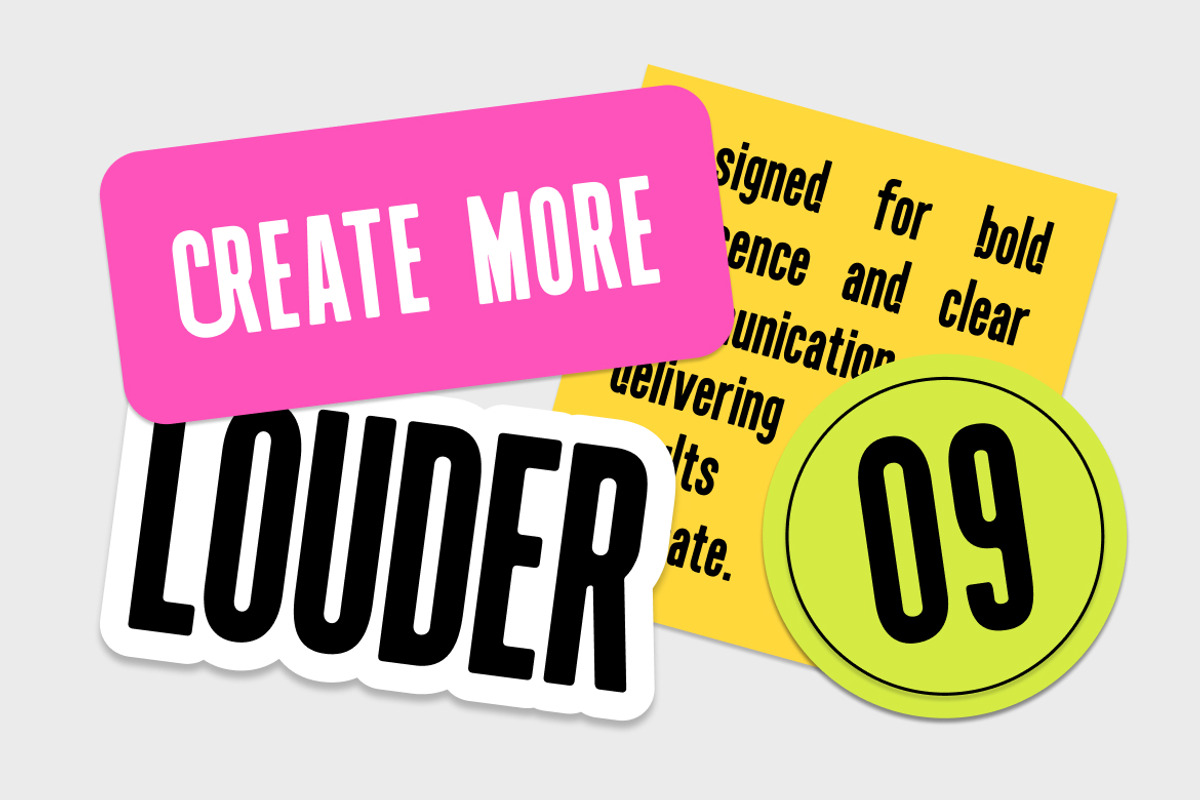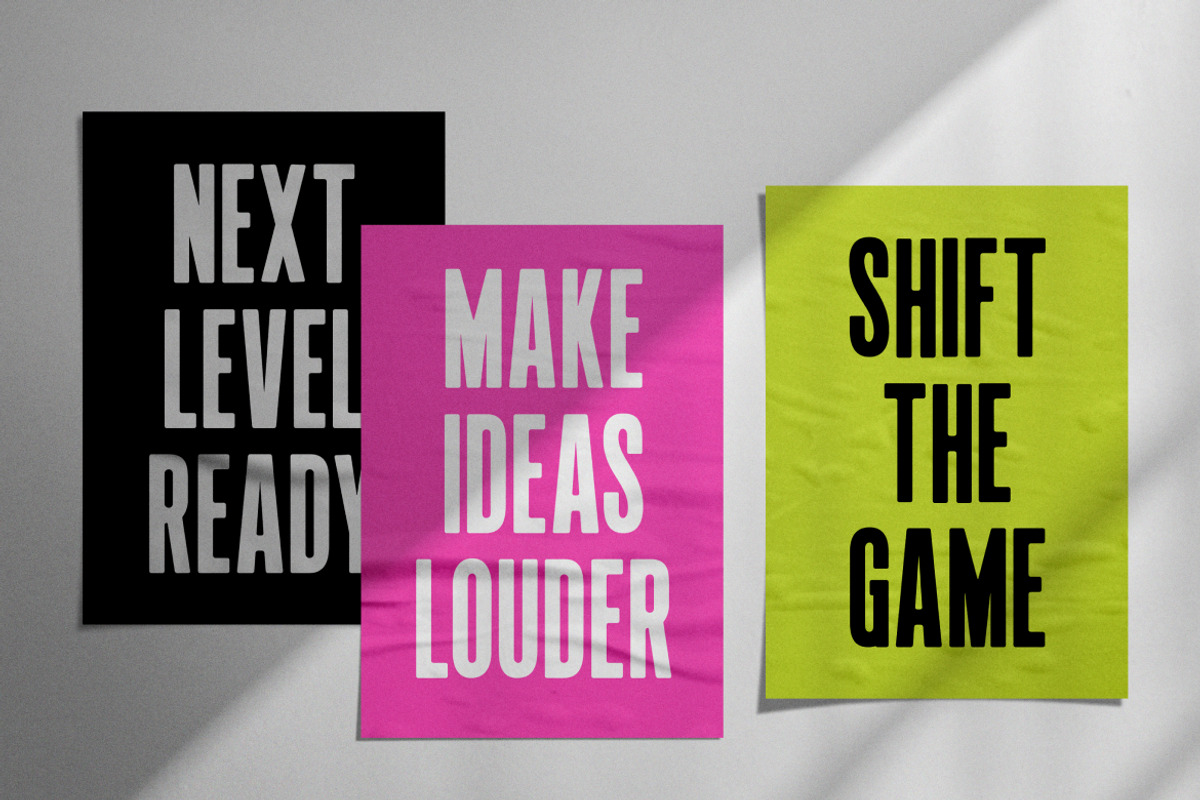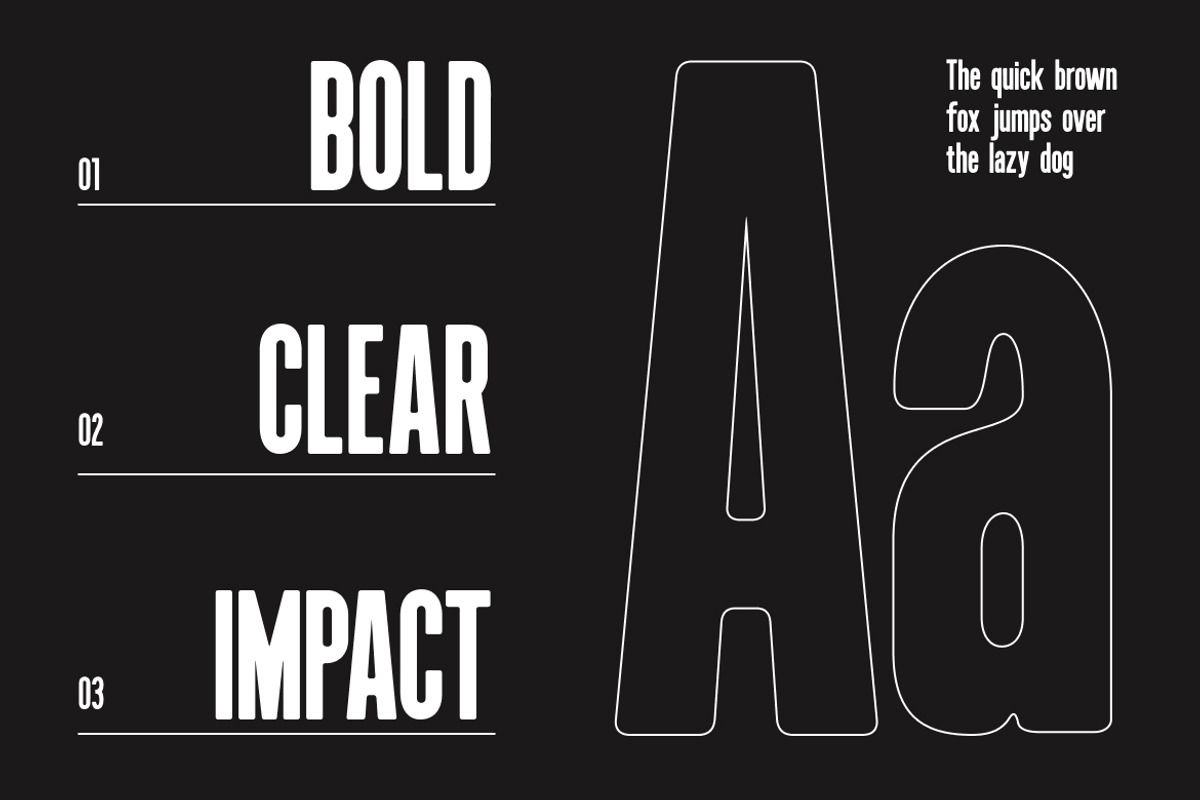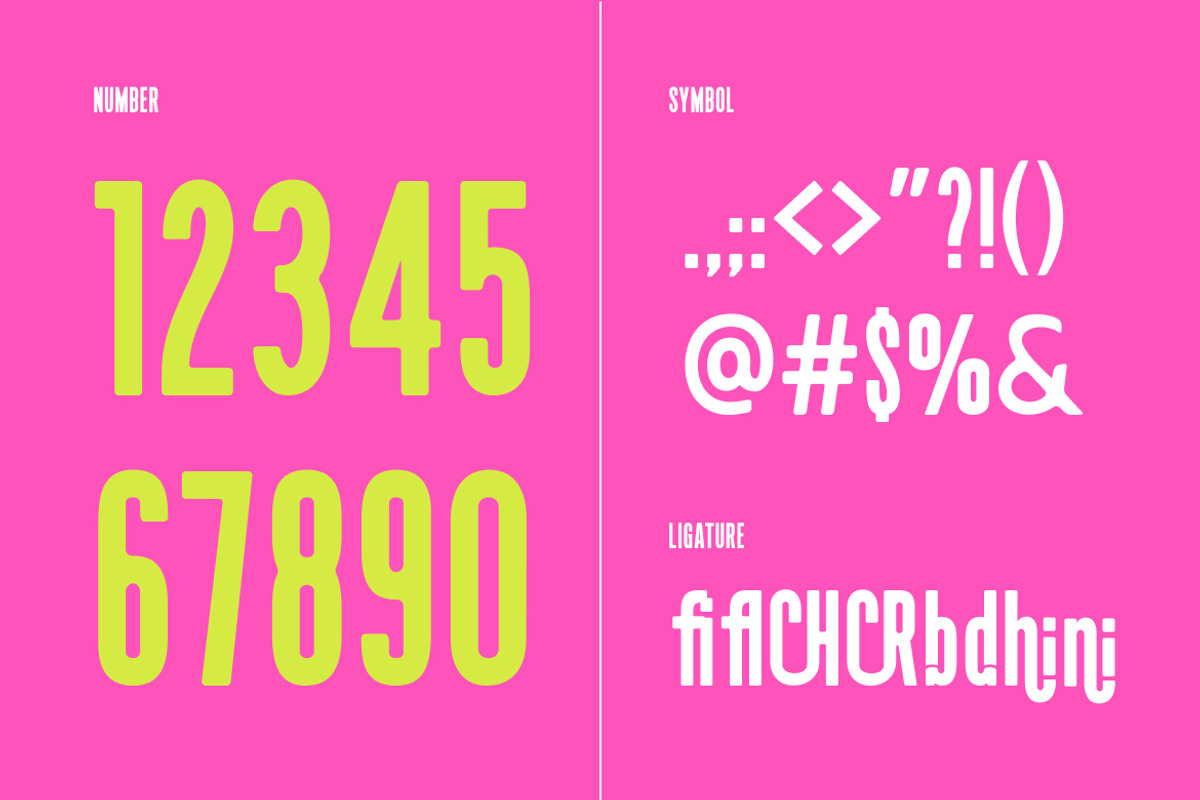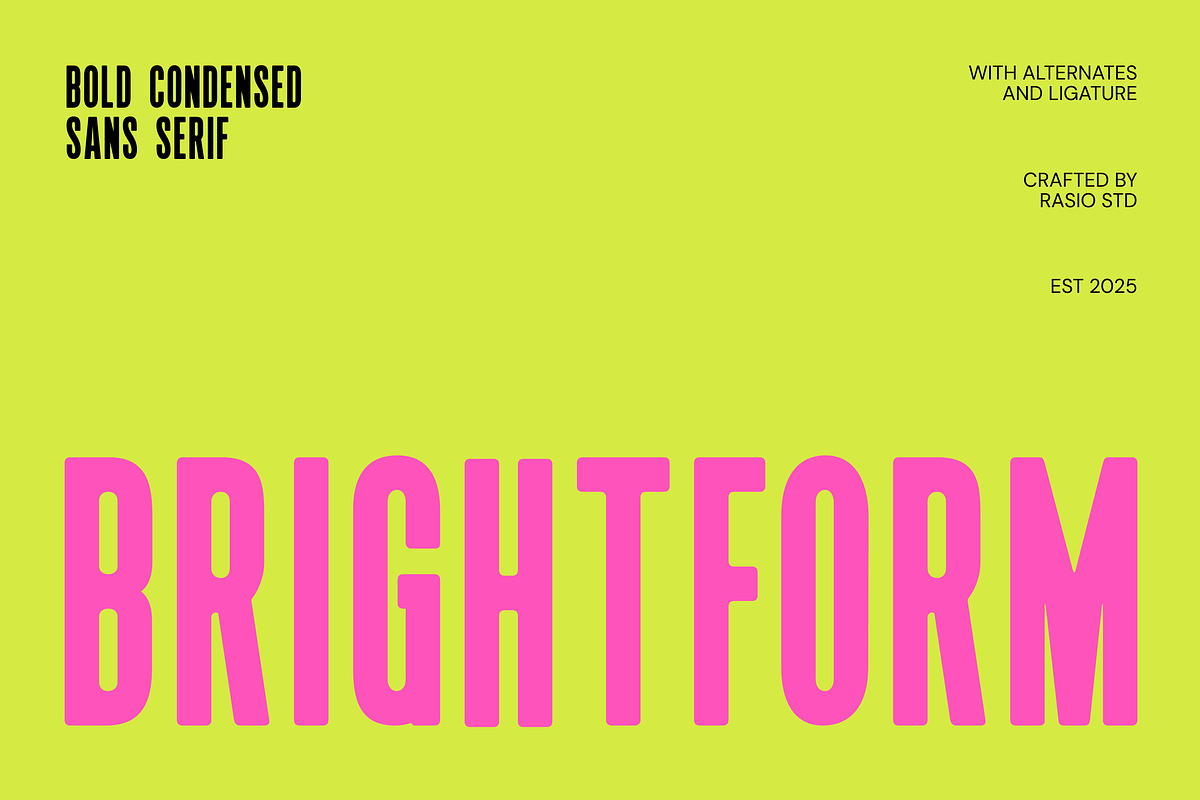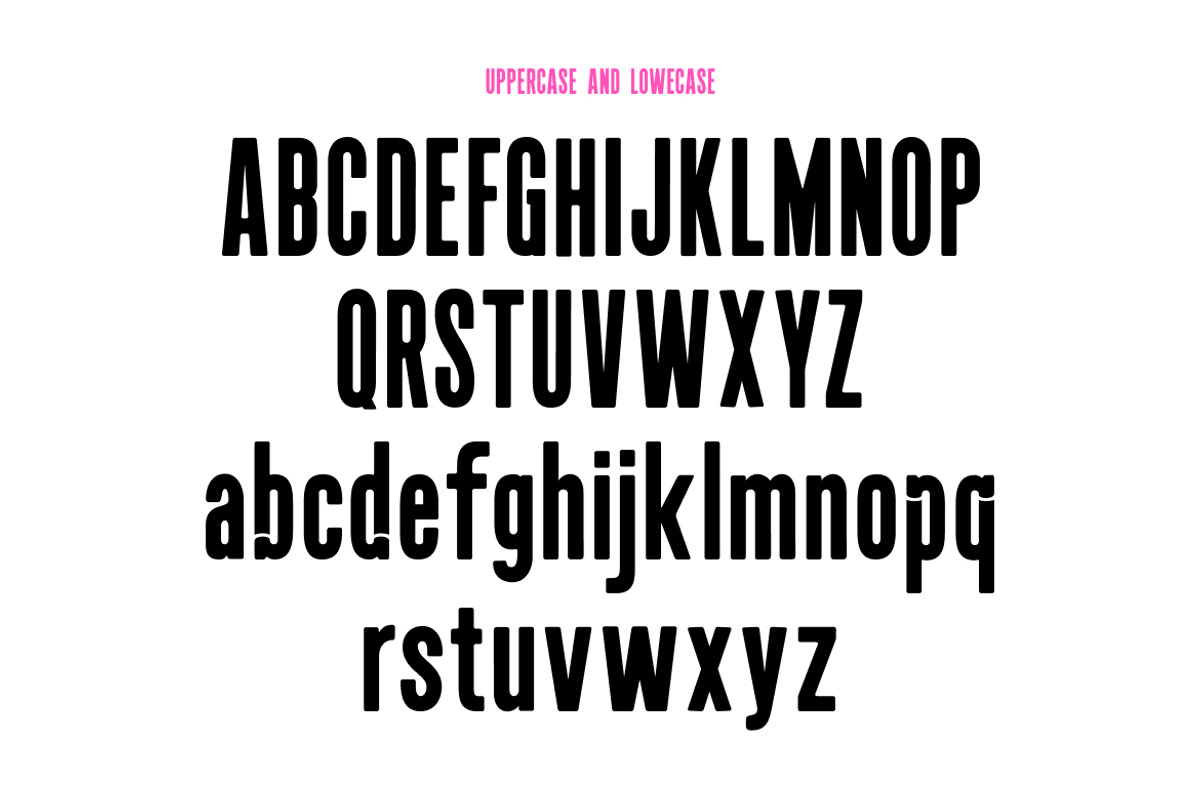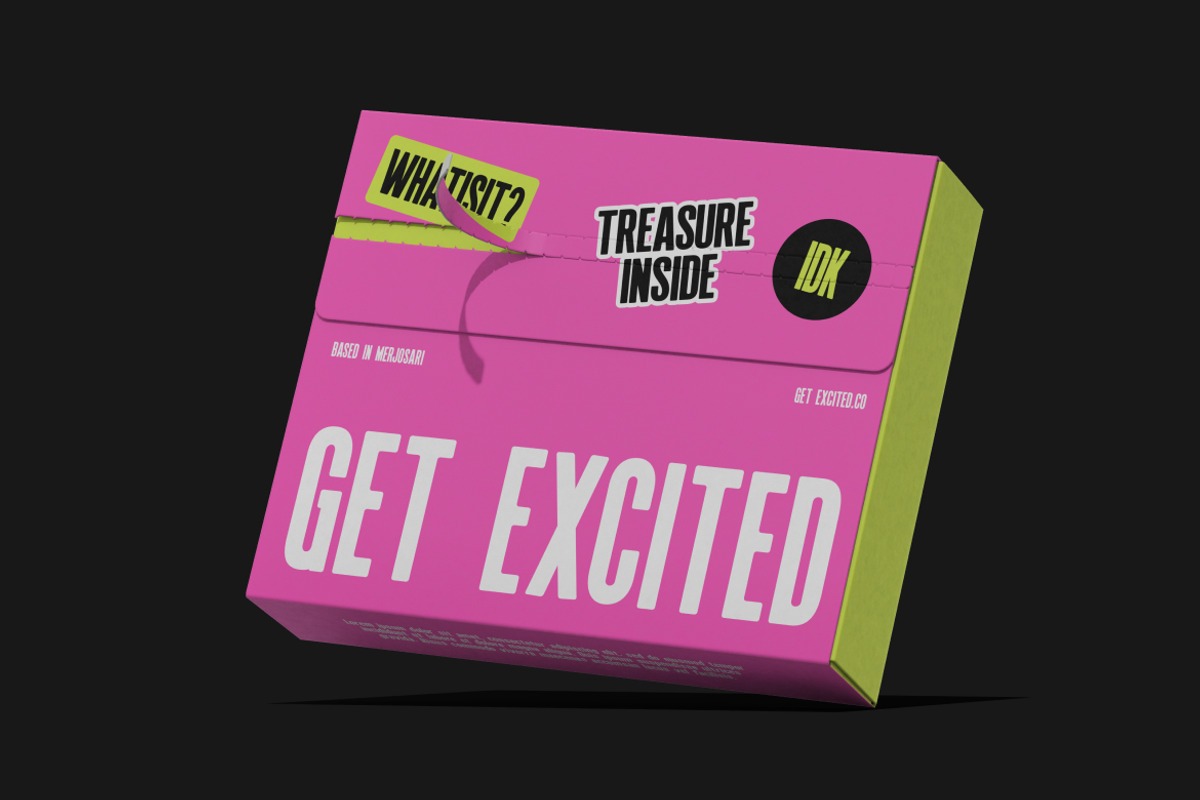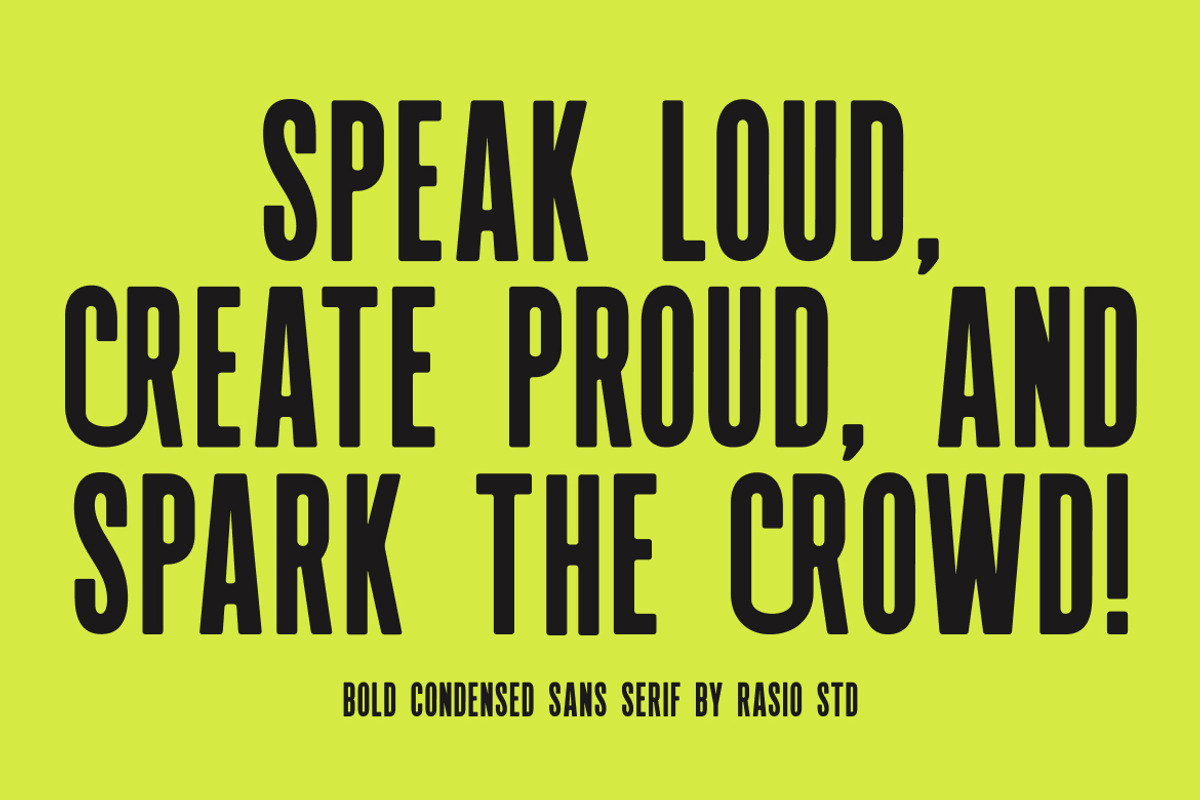
Brightform Bold Condensed Sans Font
Brightform is a bold condensed sans serif font designed for strong visual statements and modern design needs. Featuring tall proportions, solid strokes, and clean structure, Brightform delivers high impact while maintaining clarity and legibility. This font includes uppercase and lowercase letters, numerals, punctuation, symbols, alternates, and ligatures, allowing flexible typographic expression.
Brightform is highly relevant for modern designs that require bold presence in limited space. Its condensed and powerful structure makes it ideal for branding, posters, editorial headlines, advertising campaigns, social media graphics, and promotional materials where clarity and impact are essential.
- Bold condensed sans serif design built for strong visual impact
- Tall proportions with compact width for space-efficient layouts
- Clean geometric structure with firm stroke contrast
- Straight terminals and sharp curves for clarity and precision
- Optimized spacing for high readability in headlines and display use
- Bold brand identities that require strength, confidence, and high visual impact
- Sports, fitness, and lifestyle branding with limited layout space
- Posters, banners, and advertising materials that demand attention
- Editorial headlines and magazine layouts with a strong, modern tone
- Social media templates and digital marketing assets with energetic visuals